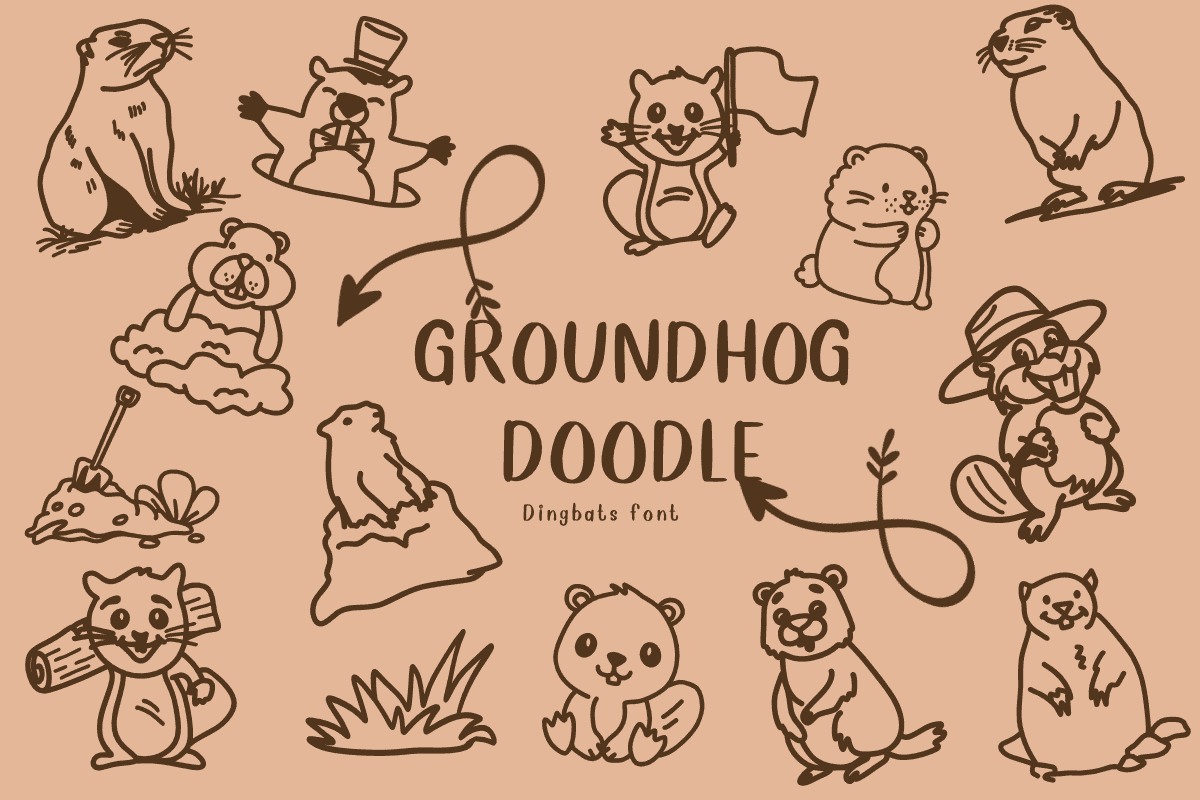
Groundhog Doodle Font: A Whimsical Touch to Your Projects Are you ready to infuse your creative projects with a touch of whimsy? Look no further than the Groundhog Doodle font, a delightful addition to the world of dingbats fonts. This charming typef...